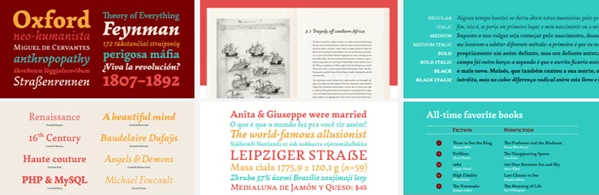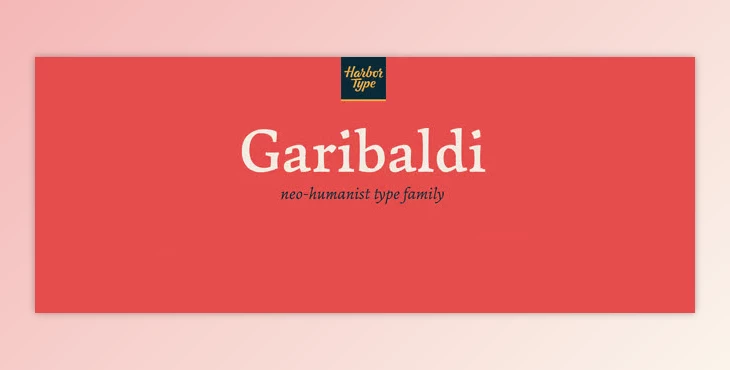
Garibaldi is a Roman Text Typeface of literary sensibilities. With roots in humanistic calligraphy and a combination of organic aesthetics with the durability of anatomical Roman structure, Garibaldi came from a desire to understand the source of strokes in humanistic typefaces, ultimately creating a type with a 20-degree axis, medium contrast, asymmetric serifs, and terminals that mirror the broad nib stroke. Garibaldi was first released with Garibaldi Regular (Tipos Latinos 2014 Nominee) and has now expanded with various weights and italics.
Garibaldi is suited for any book, magazine, or document text as it is both highly legible and intricate, and easy on the eyes. The typeface has an extensive set of OpenType features; it contains small caps, ligatures, and contextual alternates, with over 750 glyphs, and supports more than 80 different languages suitable for typograph.